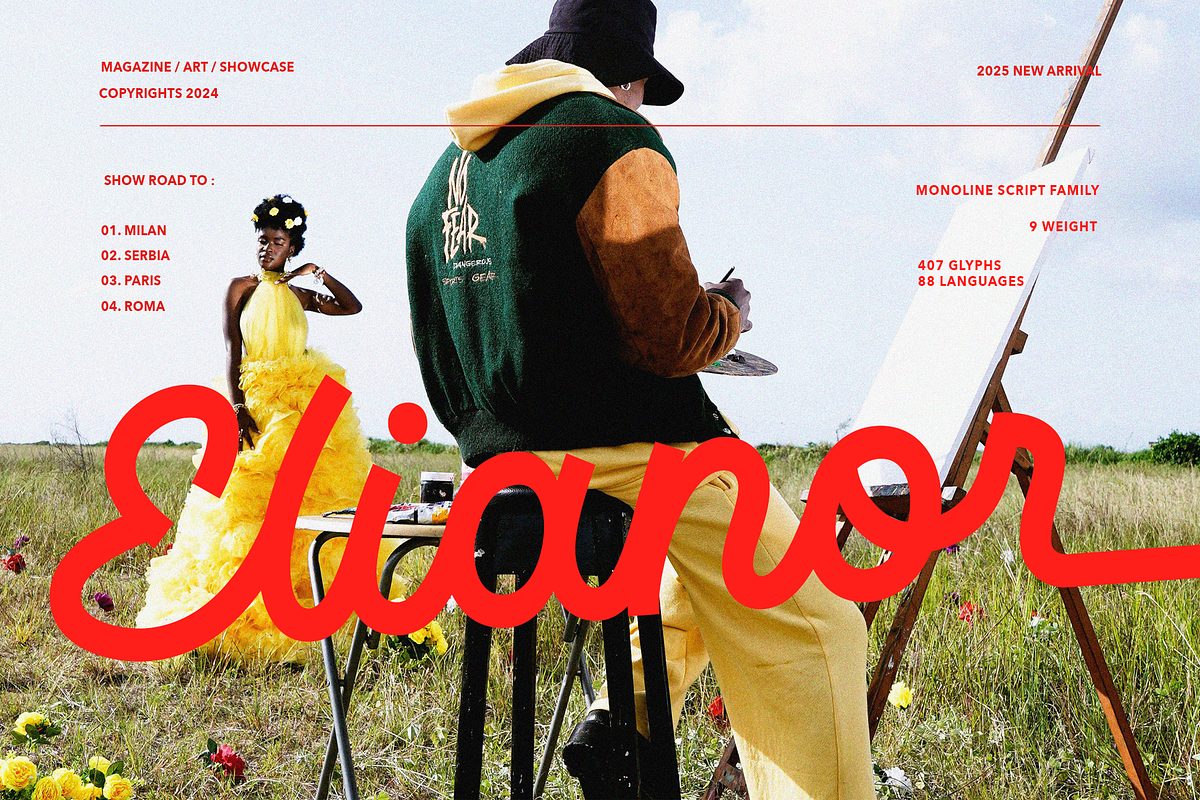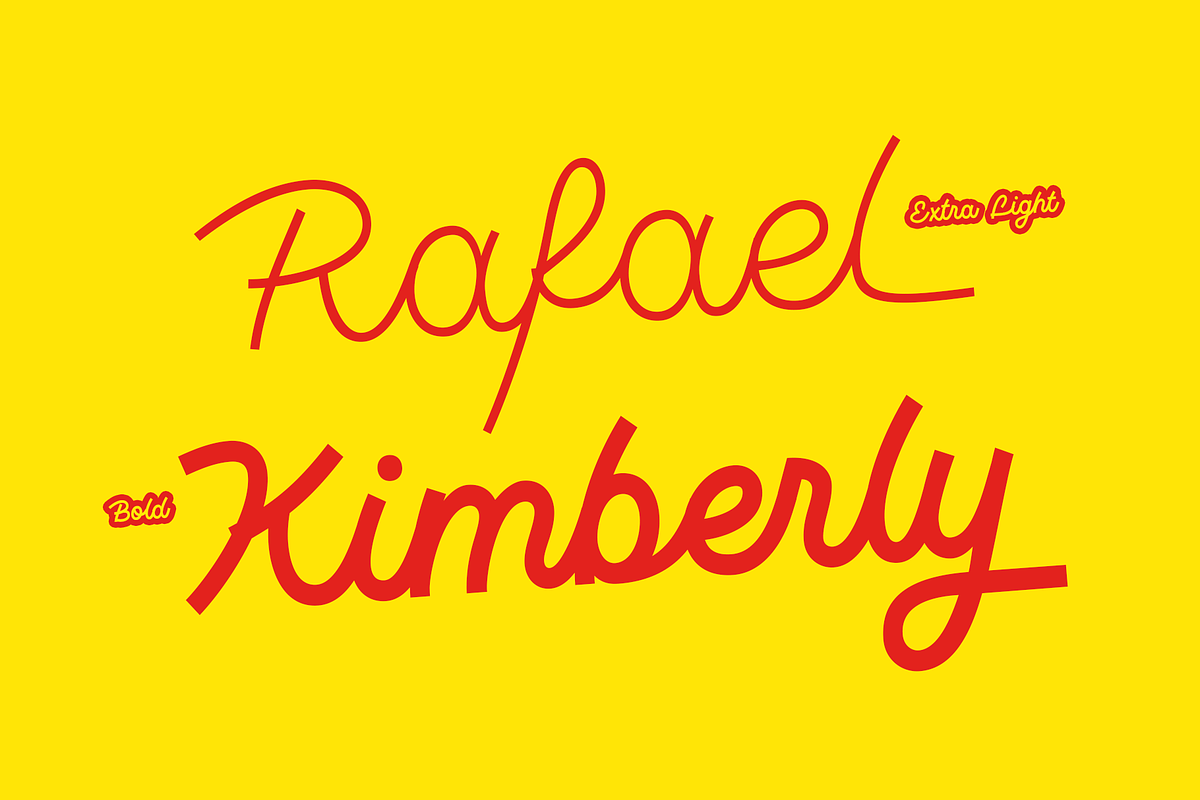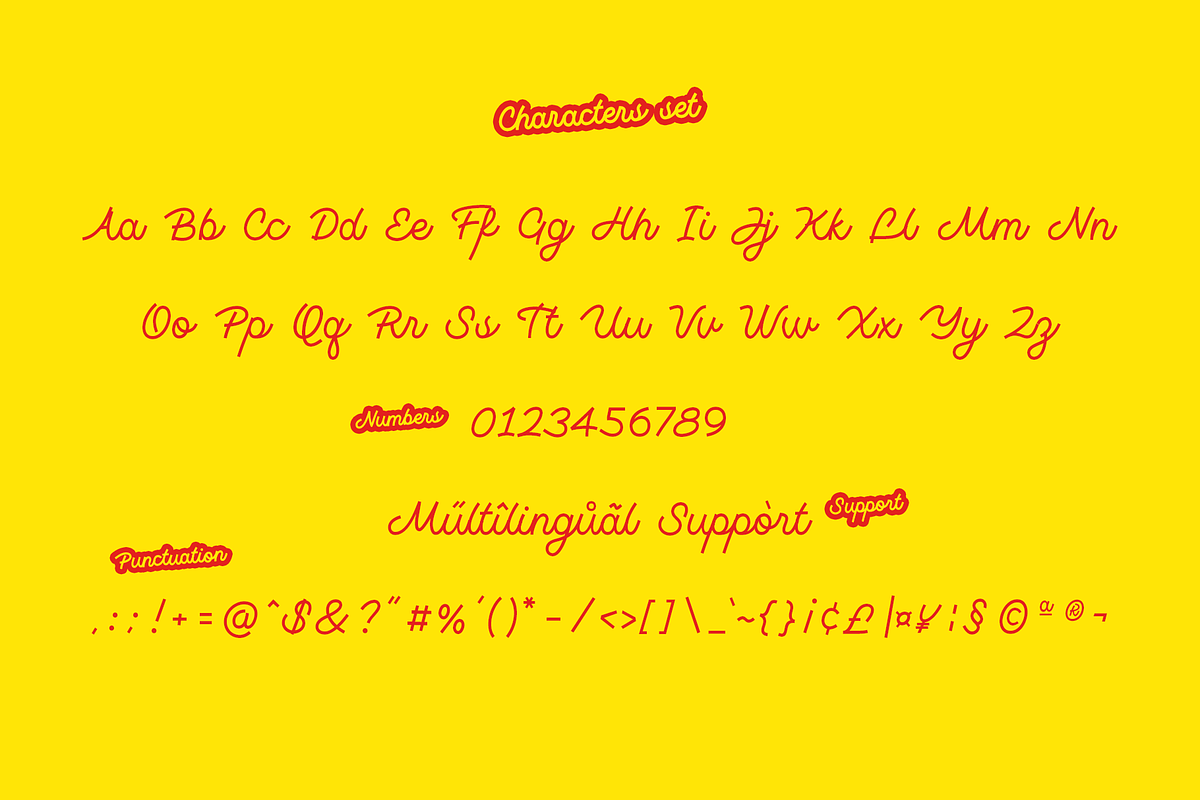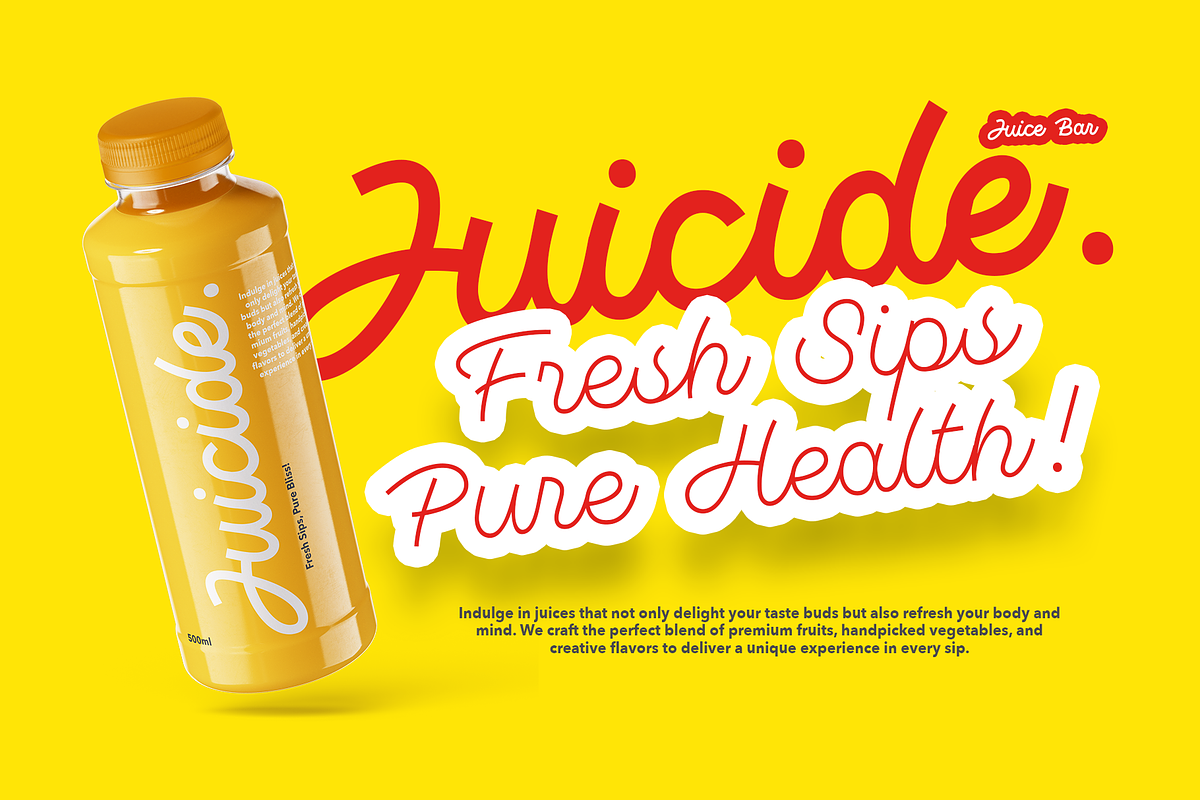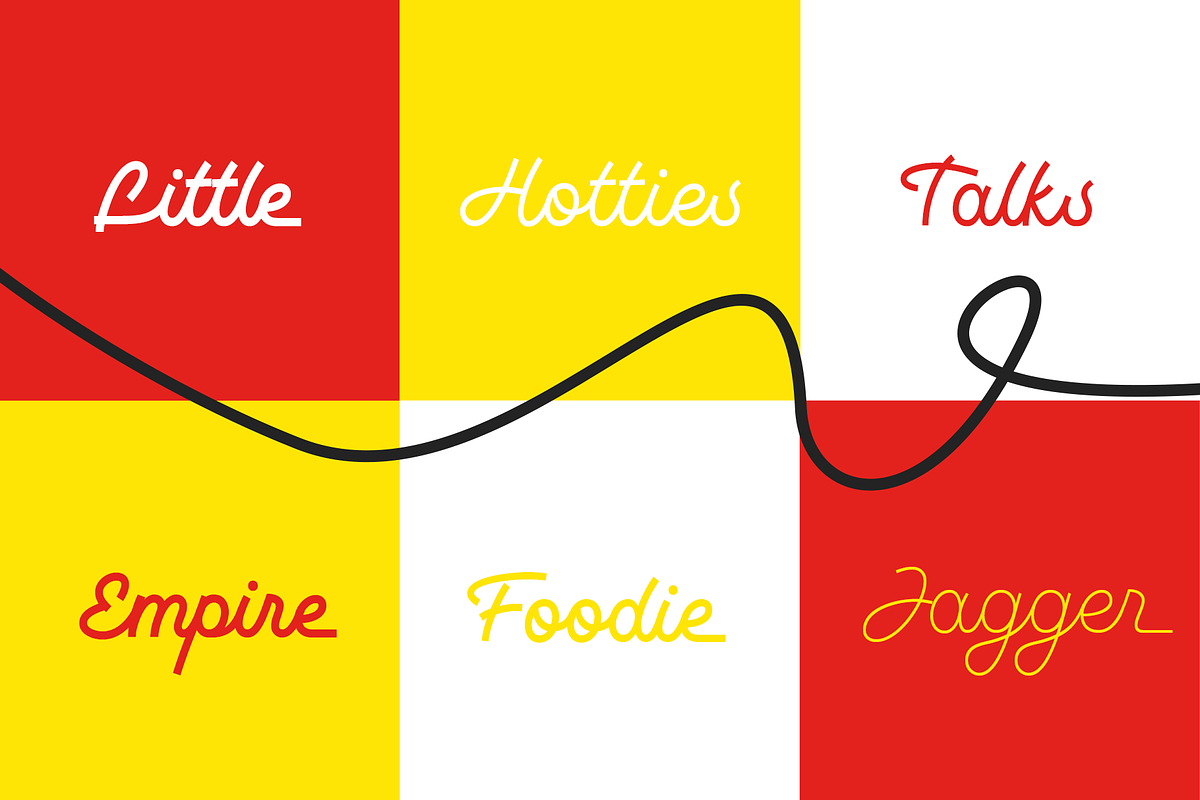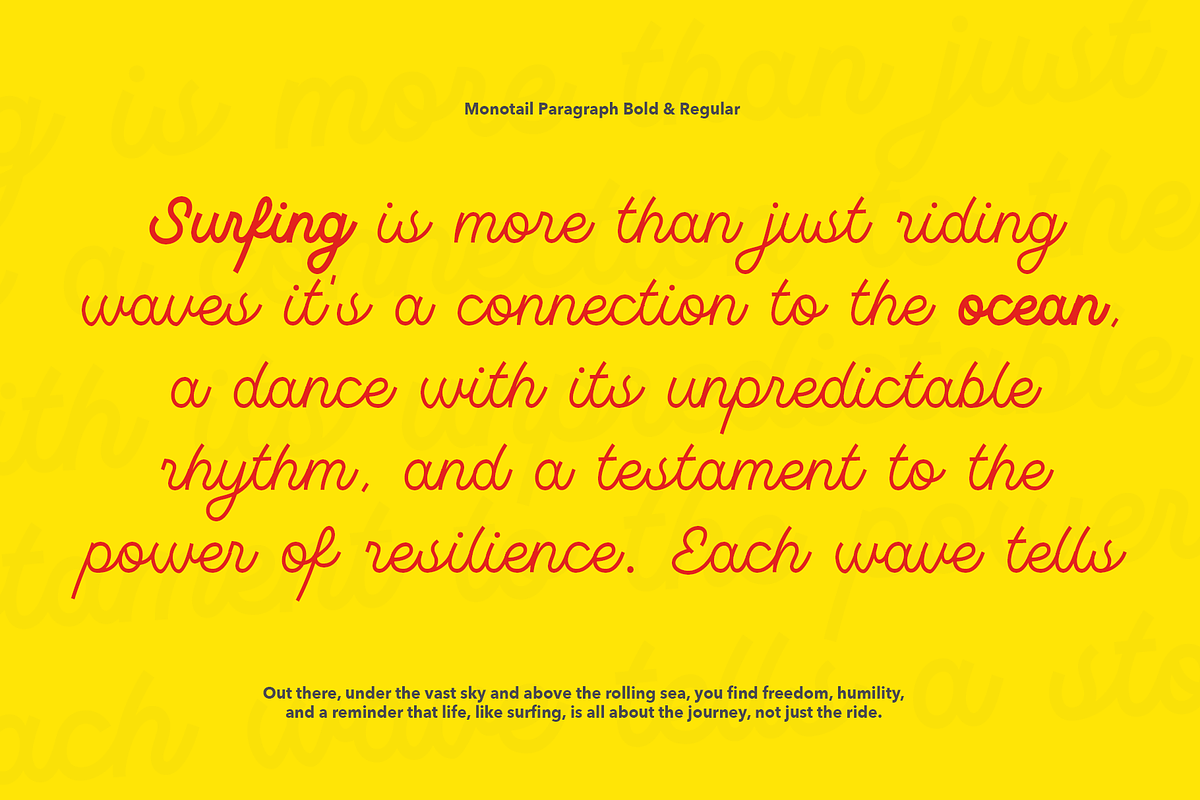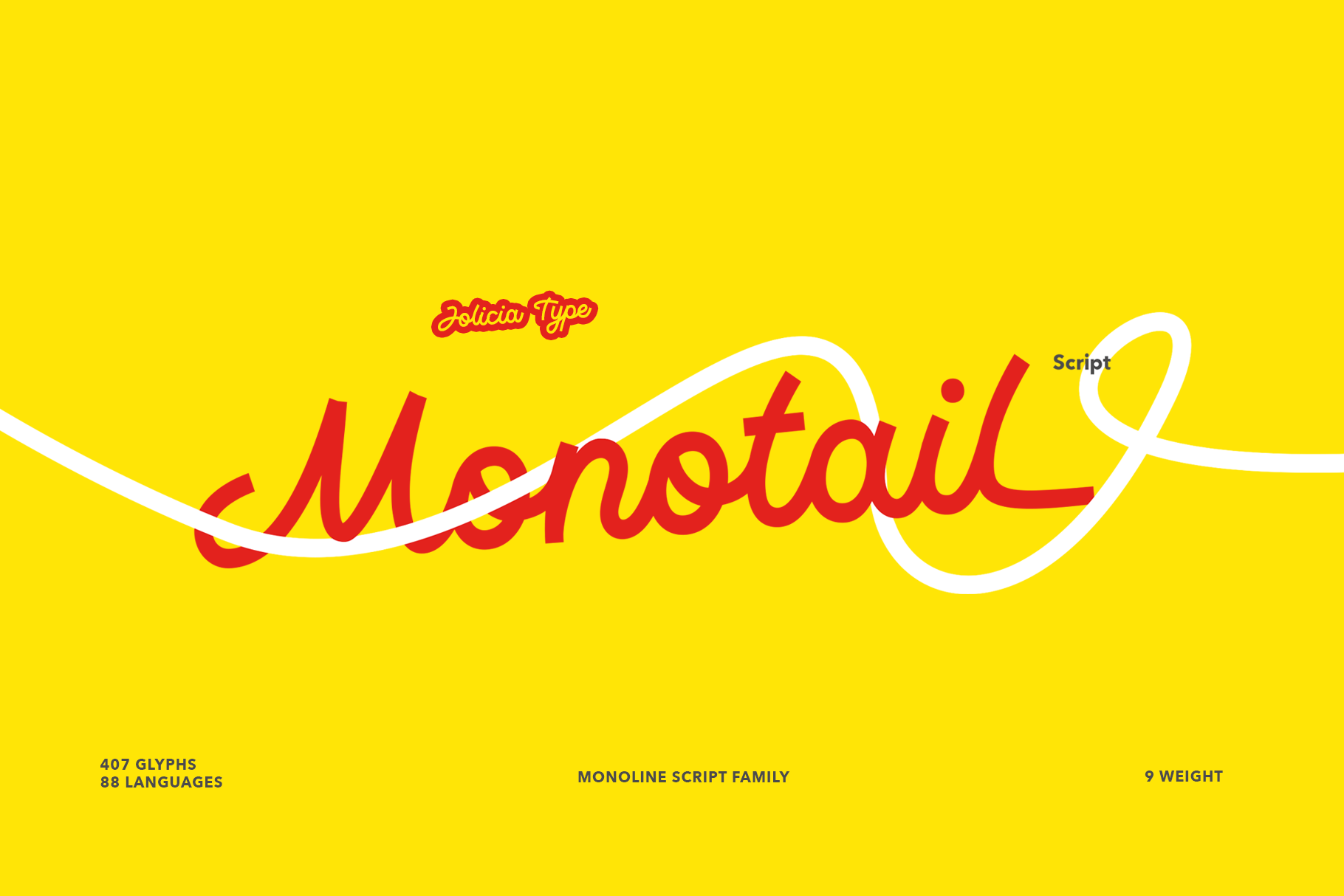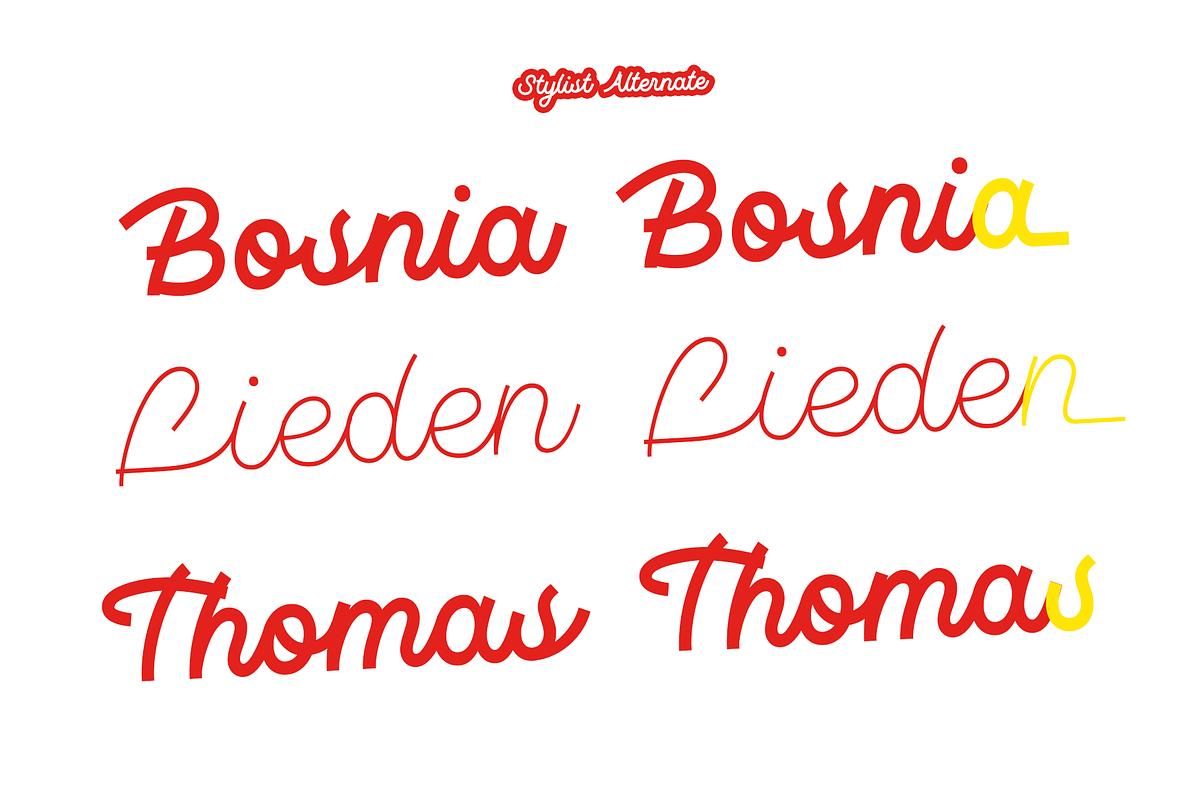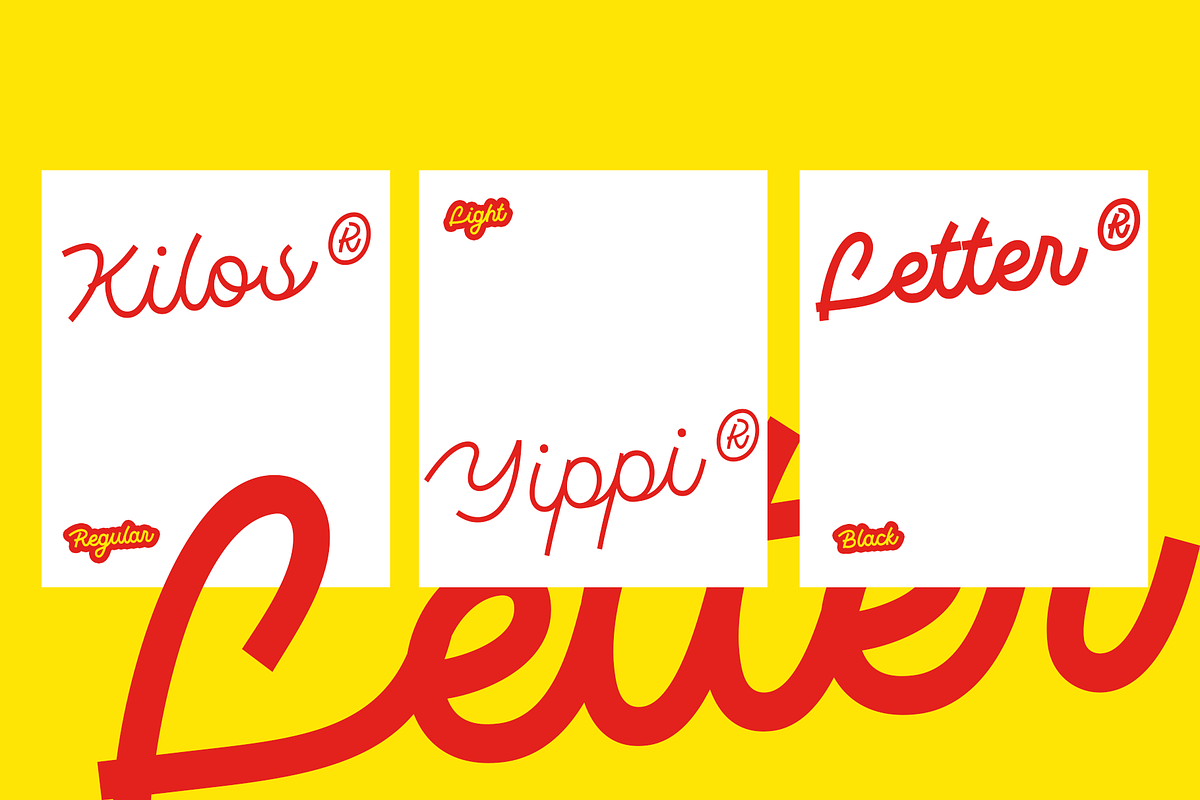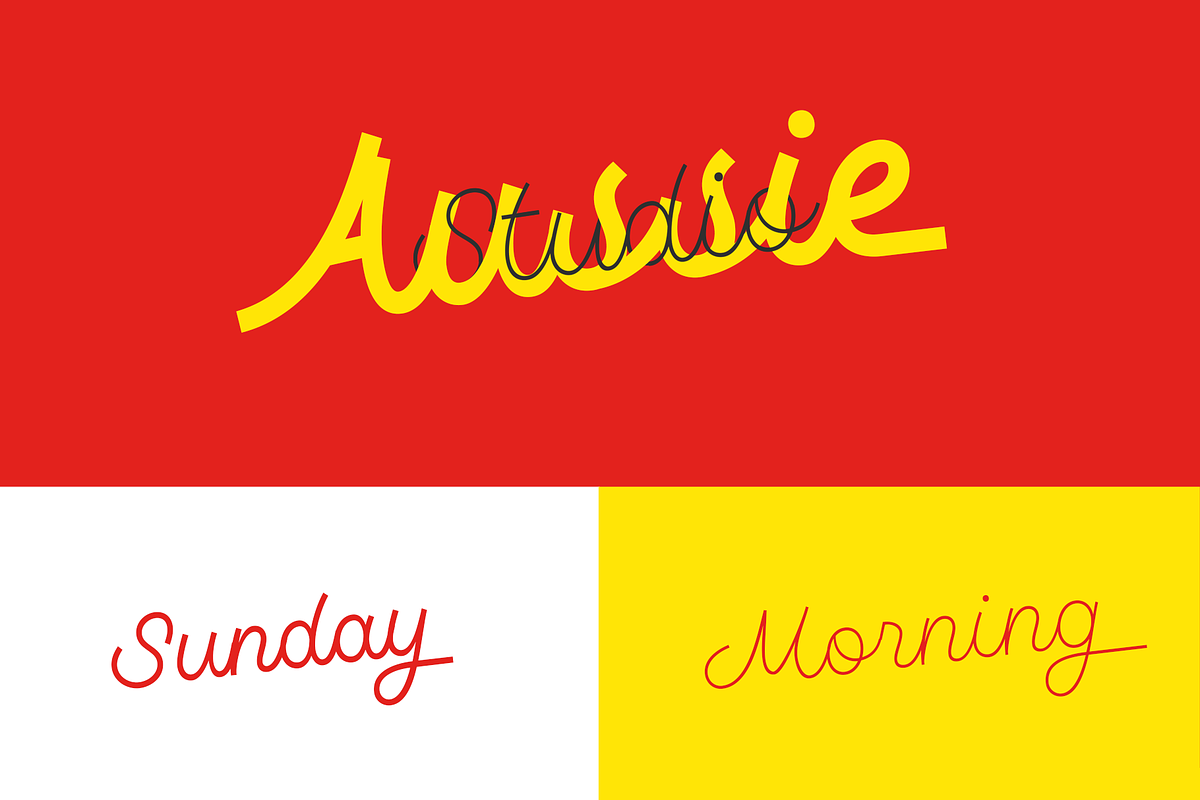
Monotail Script | Monoline Font
Explore the sleek and refined world of Monotail Script, a monoline font family designed by Laire Banyu Sandi. With 9 distinct weights ranging from Thin to Black, this font stands out for its clean, consistent strokes and meticulous attention to detail, making it an essential choice for modern typography enthusiasts.
Monotail Script is the epitome of monoline elegance. Its evenly weighted strokes create a seamless flow, ensuring a contemporary and polished look for every letterform. The precision in its design reflects Laire’s dedication to creating a typeface that is not only visually stunning but also versatile in its application.
Monotail Script balances simplicity and sophistication, making it ideal for both minimalist and dynamic designs. Its clean monoline structure ensures readability while maintaining a distinct personality, making it suitable for both formal and playful projects.
Whether you’re a graphic designer, brand developer, or content creator, Monotail Script offers the versatility and quality you need to make a lasting impression.